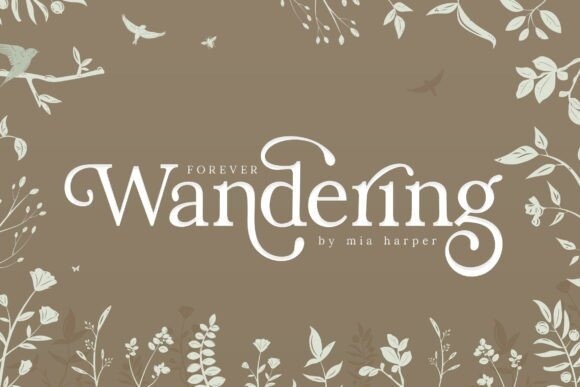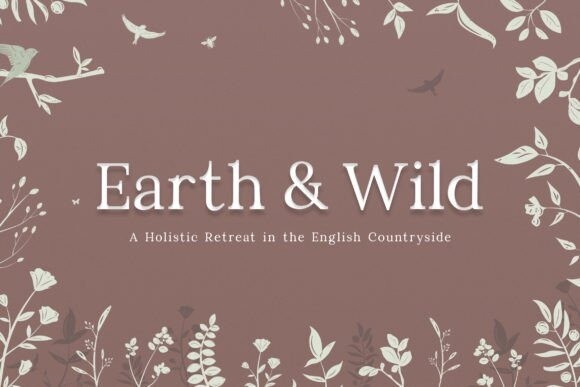
Calgary Font
Calgary Font is a spectacular duo font (serif and script). Incredibly versatile, this font fits a wide pool of designs, elevating them to the highest levels. Add this font to your favorite creative ideas and notice how it makes them come alive!